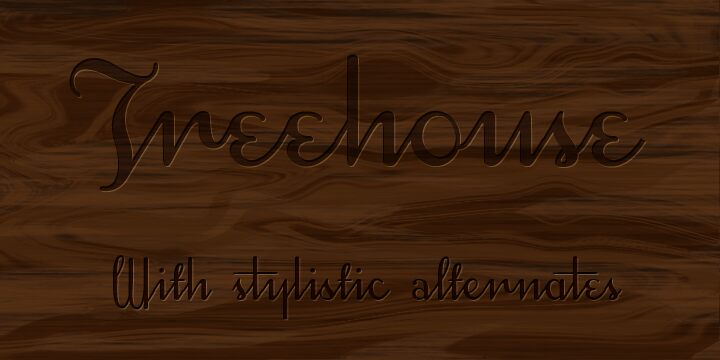
Treehouse by Måns Grebäck is a free handwritten font with exceptionally tall, narrow letters and long loops that sweep above and below the main line. Its connected strokes create a quick, continuous rhythm.
For boutique owners, wedding planners, and makers, the lettering offers a personal voice for logos, invitations, product labels, and social graphics, particularly in designs centered on graceful movement and informal polish. In editorial work, its high-reaching loops can turn a magazine cover line into part of the illustration, echoing ribbons, thread, or drawn flourishes.